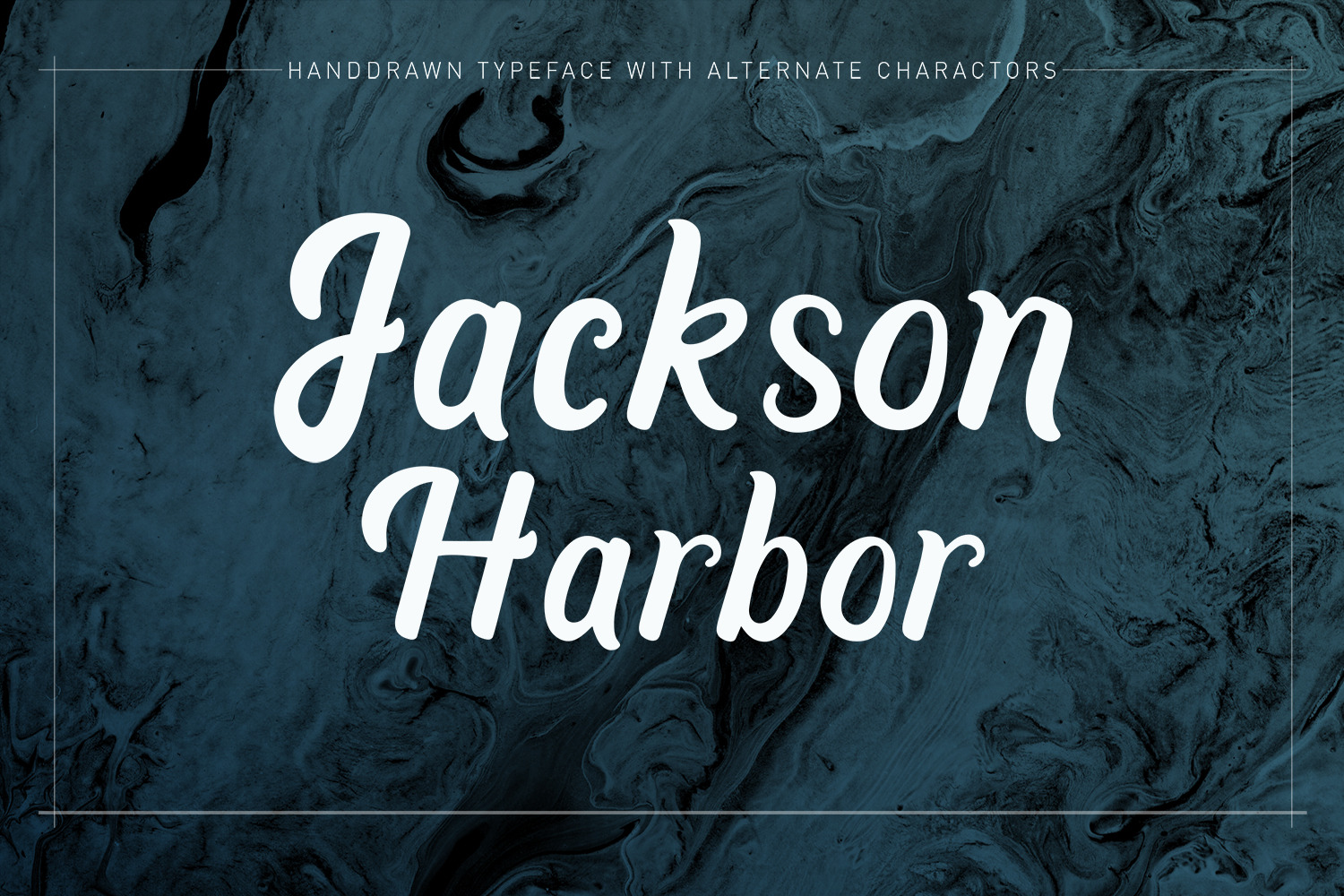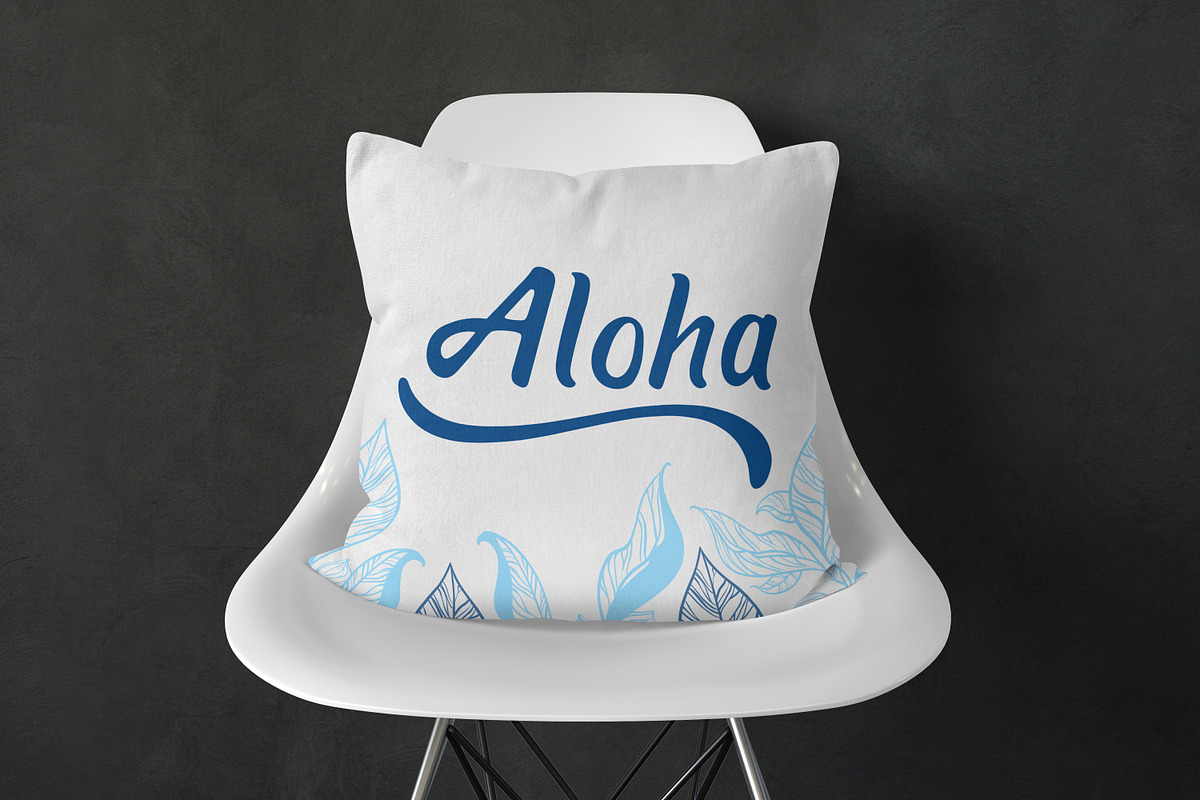
Jackson Harbor | Handdrawn Typeface
Jackson Harbor!
A clean brush font with personality! Jackson Harbor comes with standard and alternate characters that will make your design standout. Ligatures are also included to both standard and alternates. It has multilingual support with accented characters for for international (Western European, Central European and South Eastern European) users.
Jackson Harbor is a perfect font for your design projects especially branding, logo, packaging, greeting cards, invitation, special events, stationery, scrapbooking, home goods, etc.